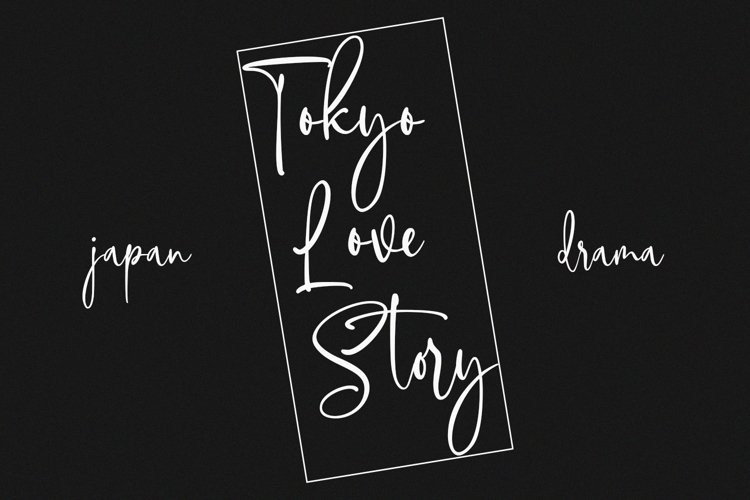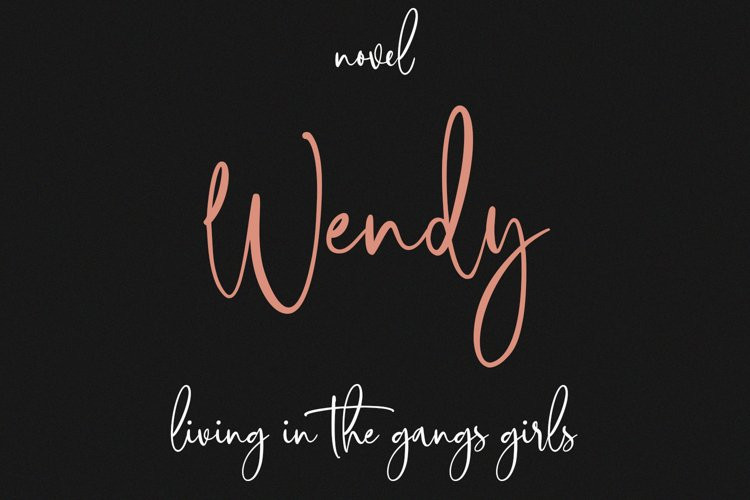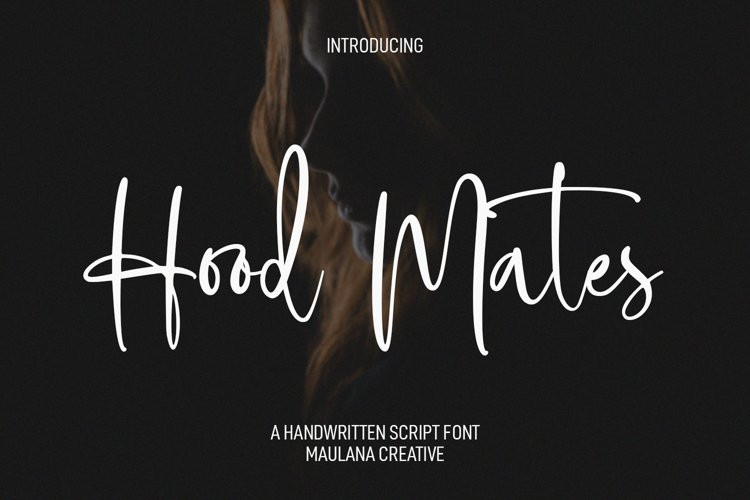
Hoodmates Font
Hoodmates FontHoodmates is an upright style script font. With light contrast stroke, fun character with a bit of ligatures and alternates. To give you an extra creative work. Hoodmates font support multilingual more than 100+ language. This font is good for logo design, Social media, Movie Titles, Books Titles, a short text even a long text letter and good for your secondary text font with sans or serif. Make a stunning work with Hoodmates font.